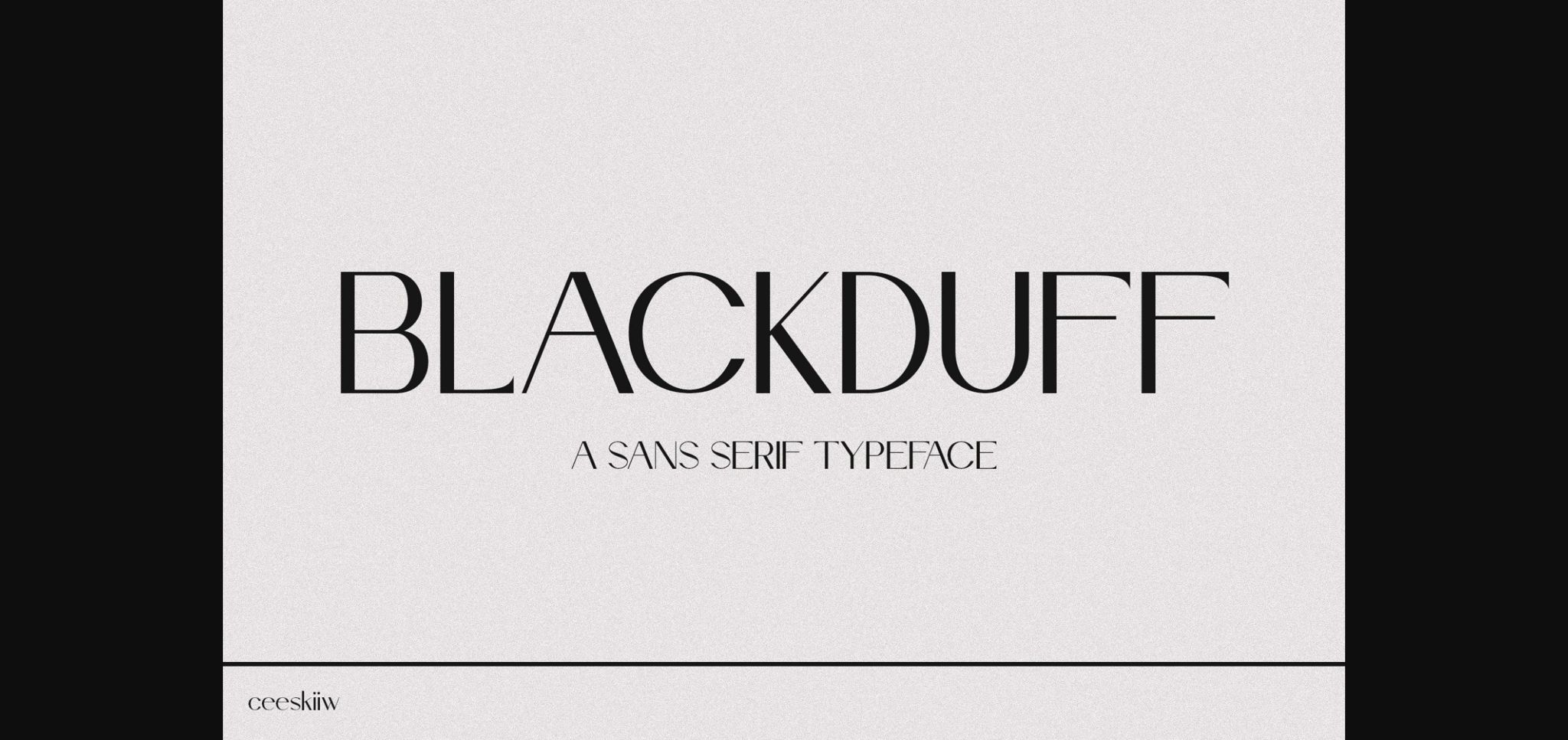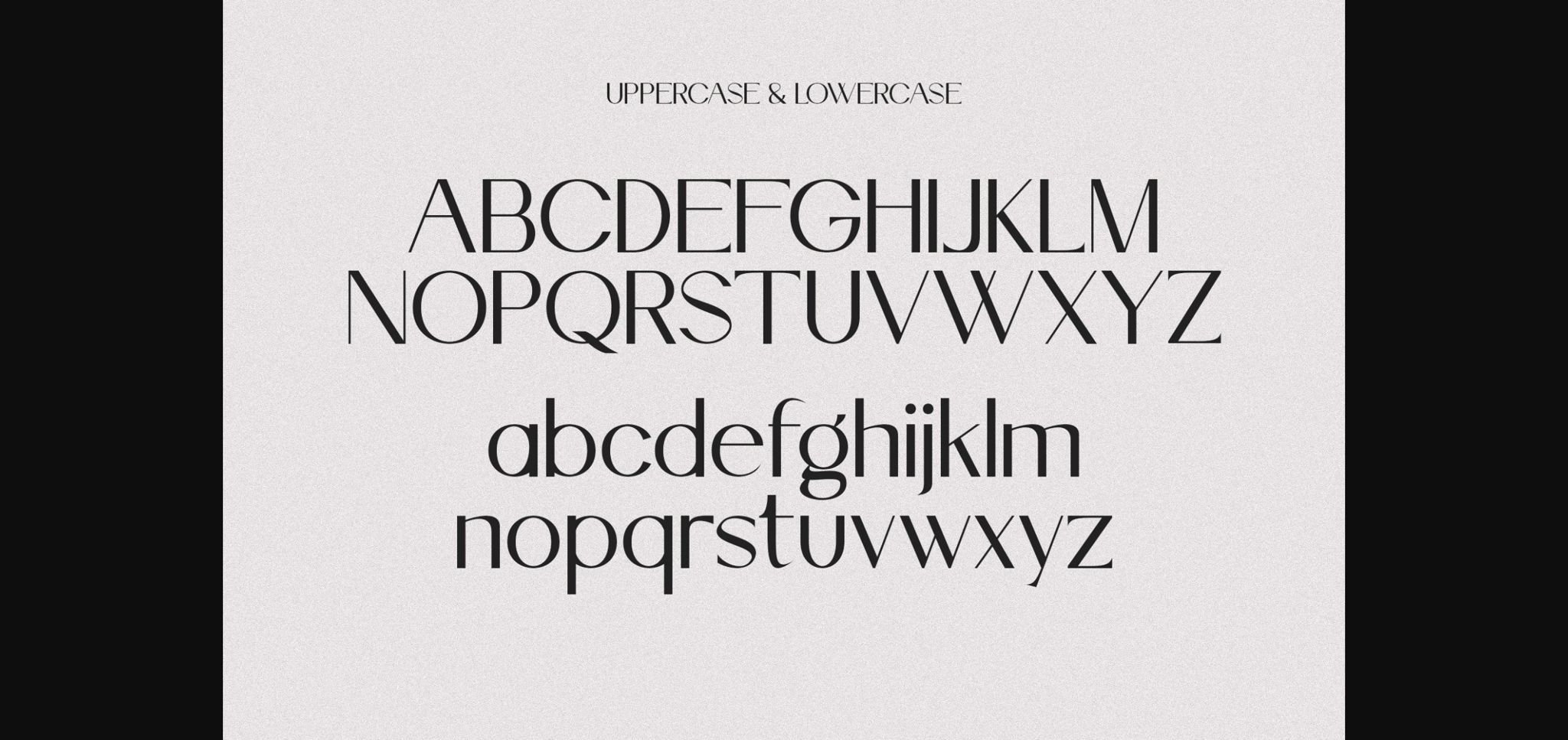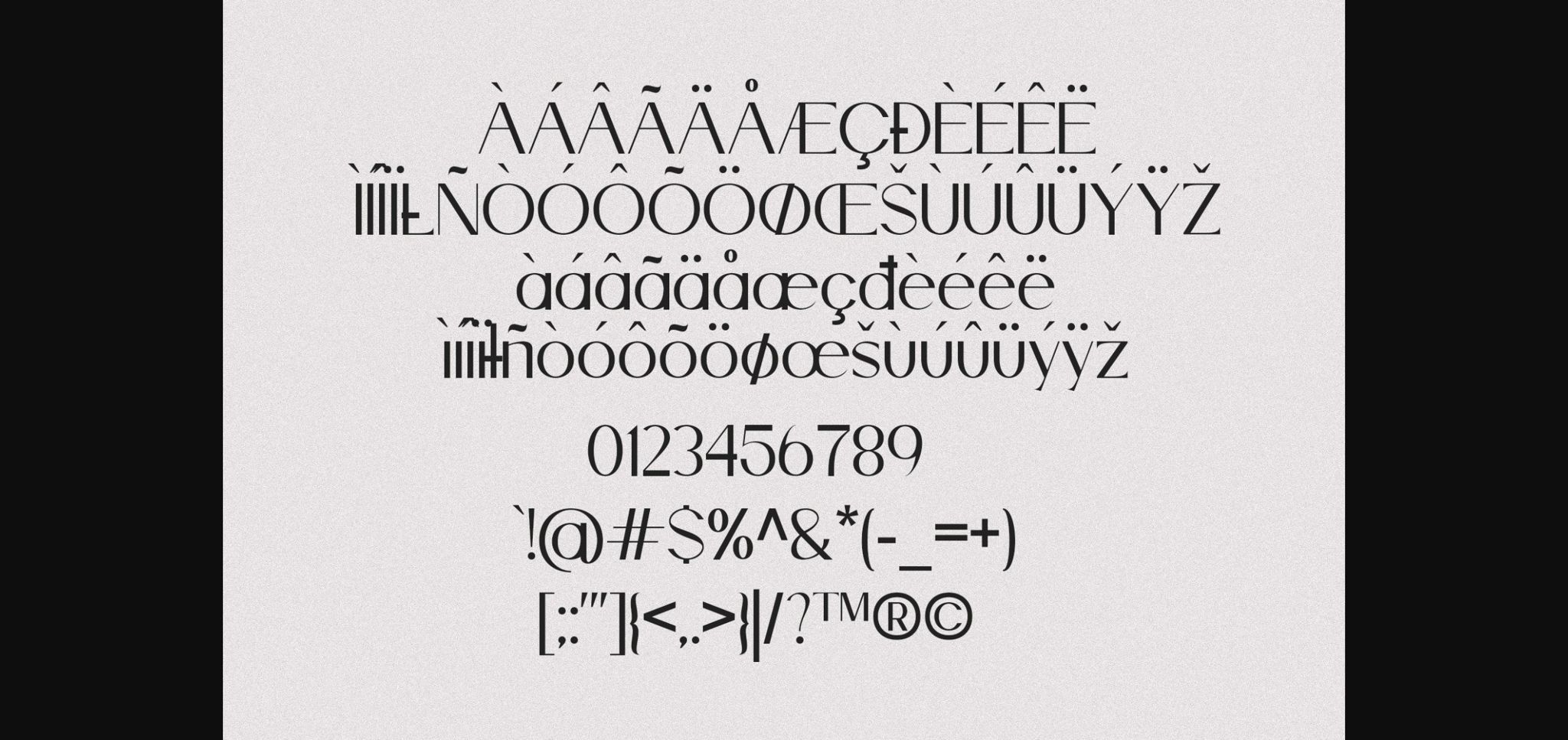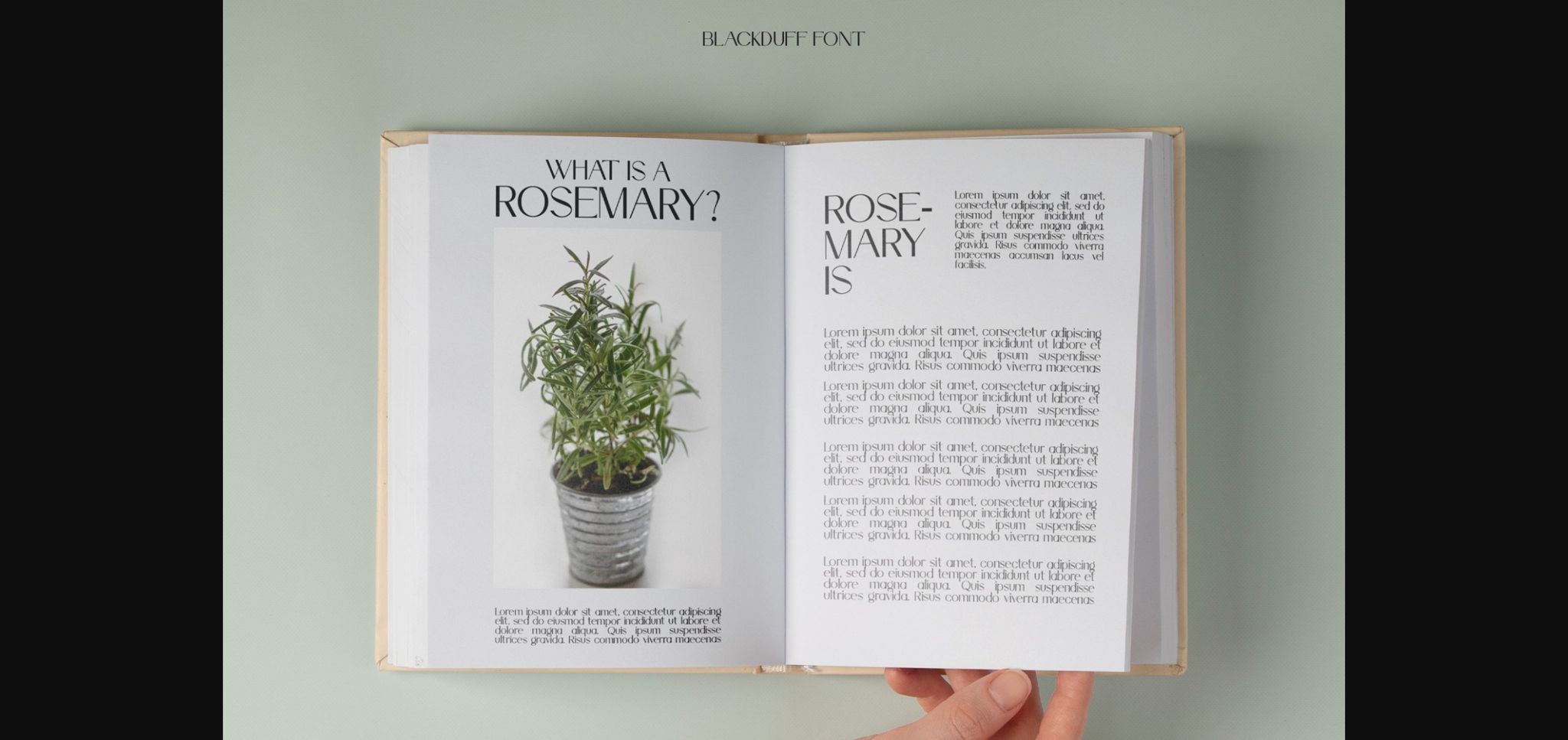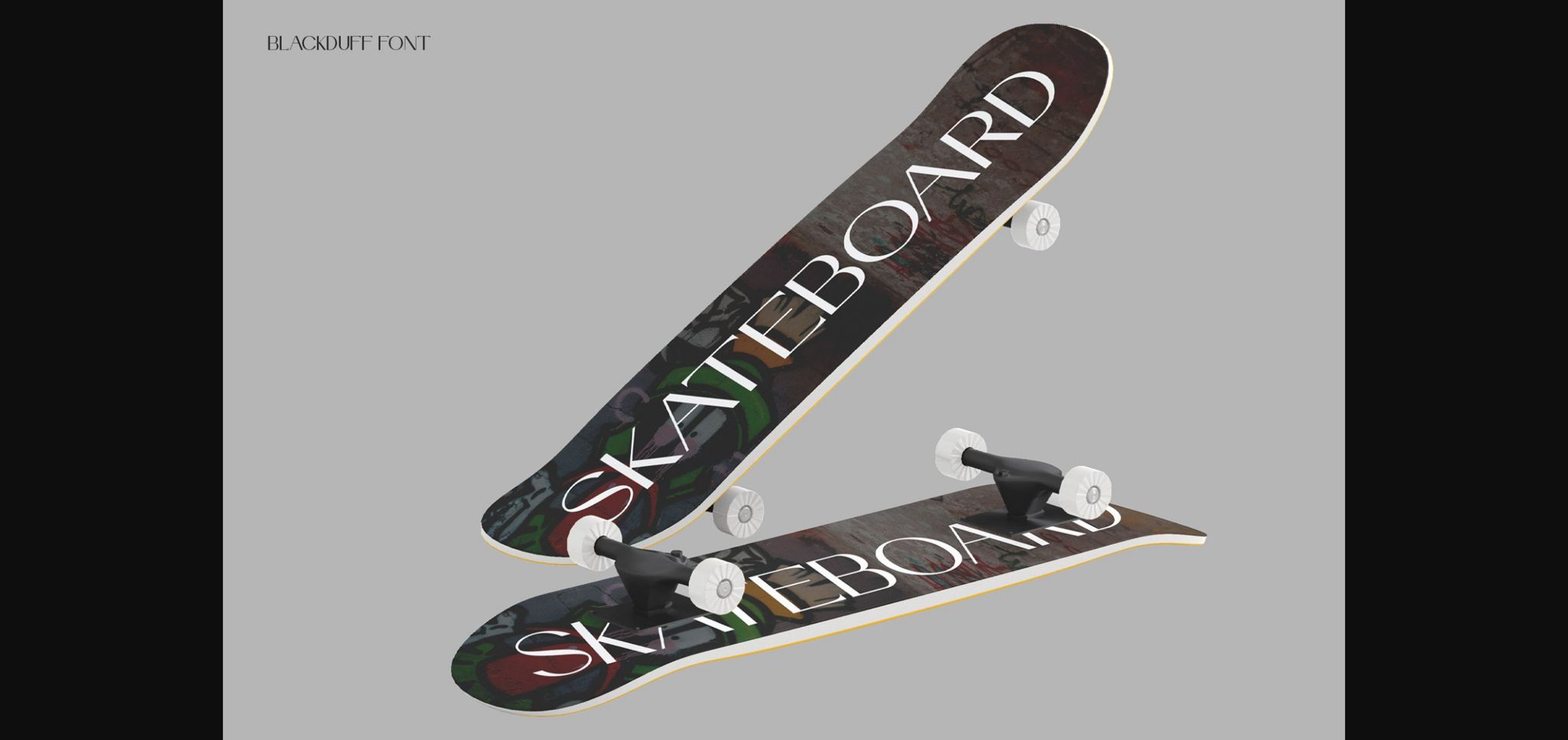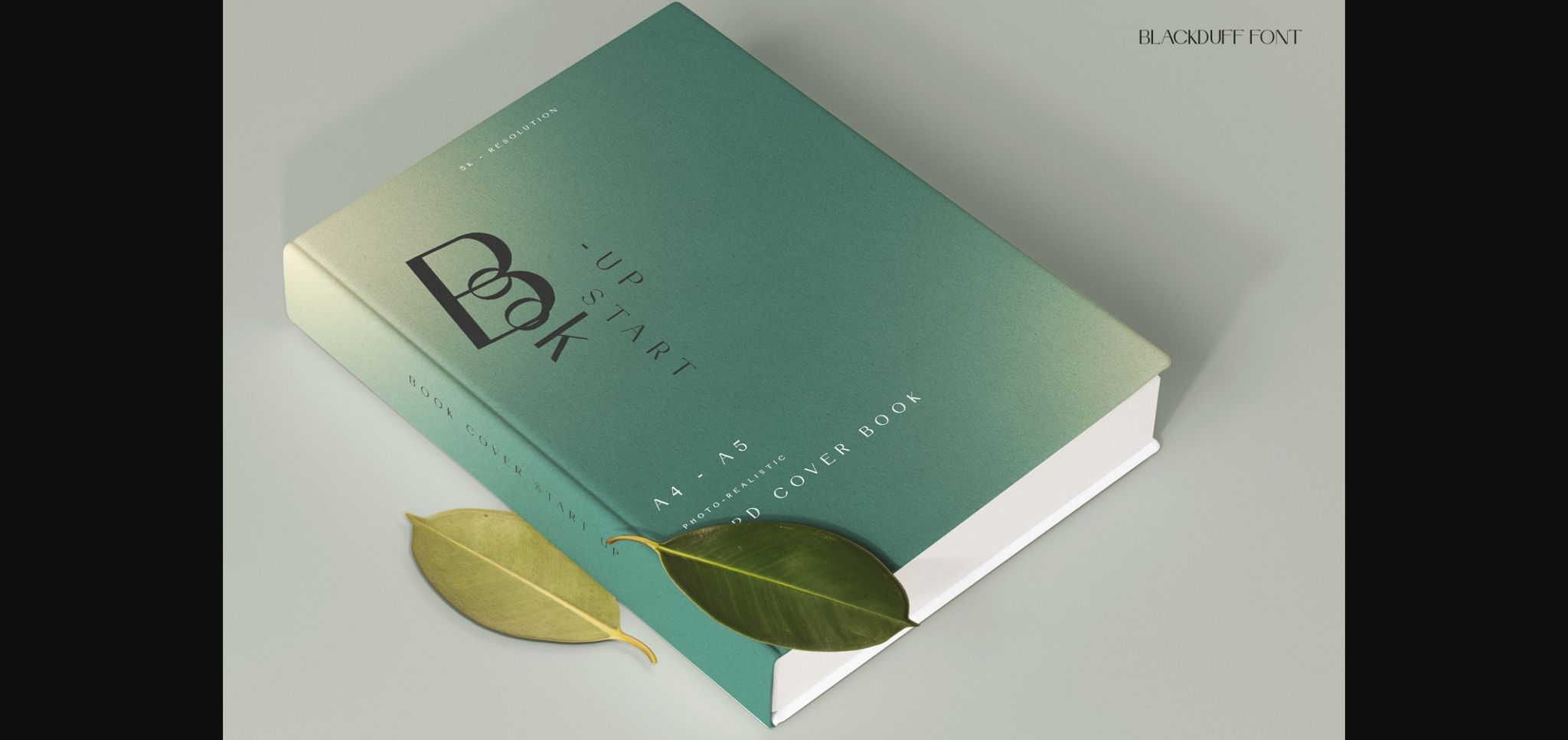
About Blackduff Font
Blackduff is a sans serif typeface, modern, vintage, and retro.
Blackduff excels in display settings such as headlines, titles, branding projects, Logo design, packaging, magazine headings, advertising, and short or long text.